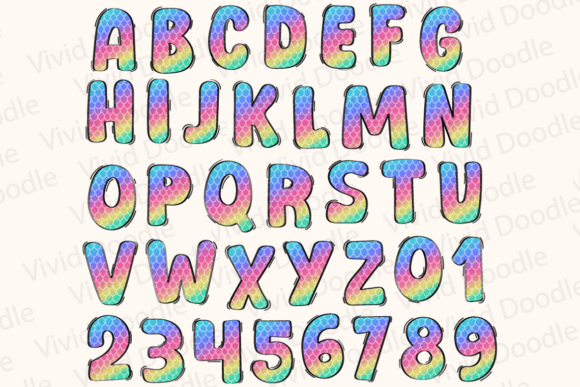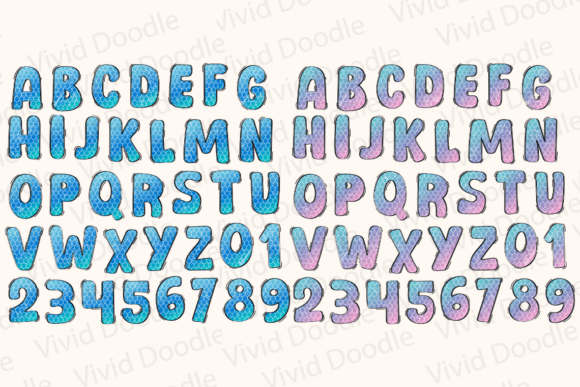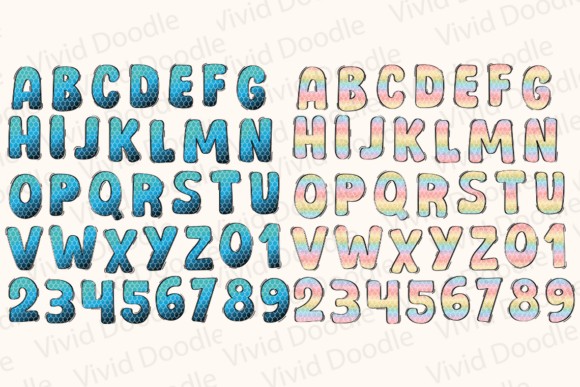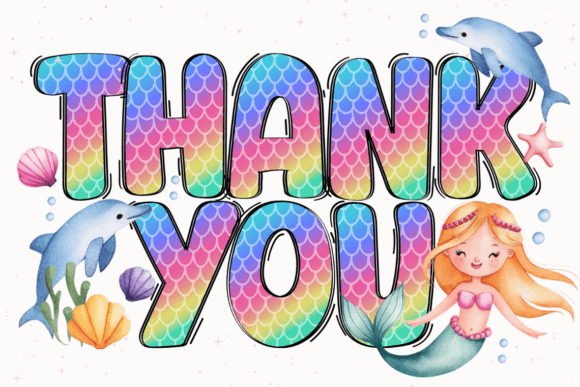
Introduction to Mermaid Rainbow Font
Mermaid Rainbow Font is a magical and colorful typeface inspired by the enchanting world of mermaids and rainbows.
This playful font combines vibrant rainbow hues with whimsical, flowing letters, perfect for adding a touch of fantasy to your designs Whether youโre working on party invitations, school projects, greeting cards, or creative art, this font brings a splash of fun and imagination to any graphic design.
Key Features of Mermaid Rainbow Font
Why Choose Mermaid Rainbow Font?
Mermaid Rainbow Font offers exceptional quality and versatility, making it a valuable addition to your design toolkit. Whether you’re creating for personal projects or commercial use, Mermaid Rainbow Font delivers professional results.